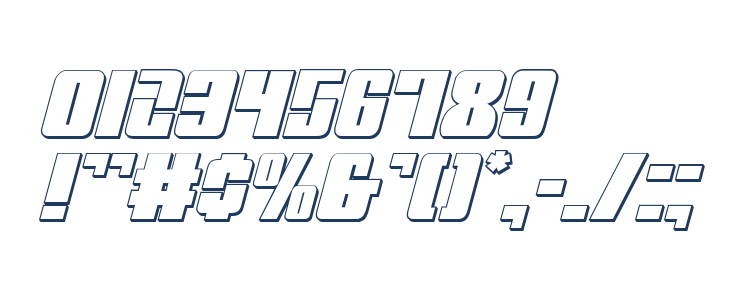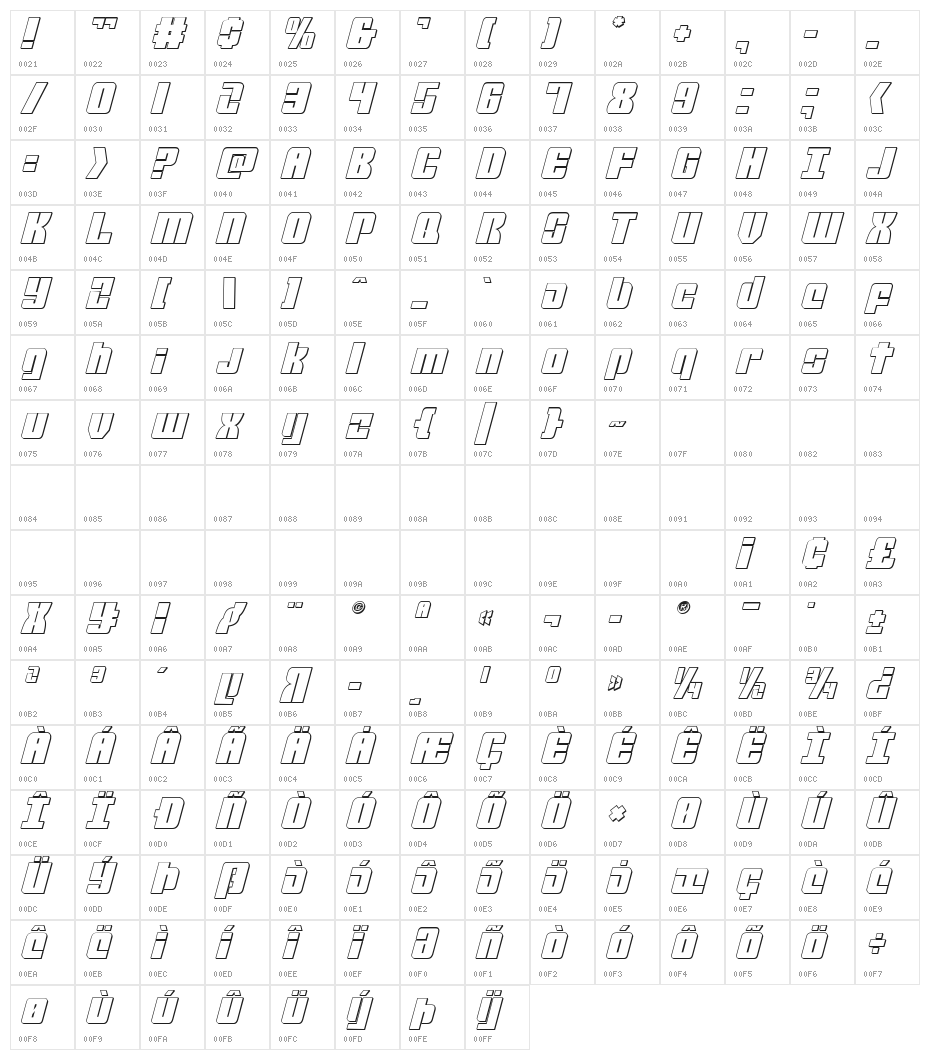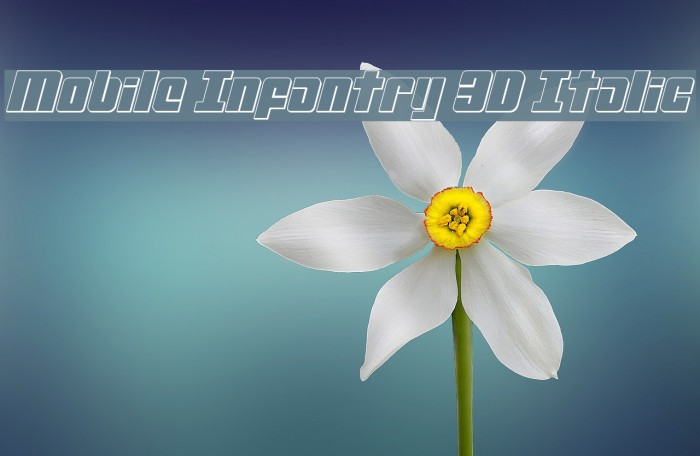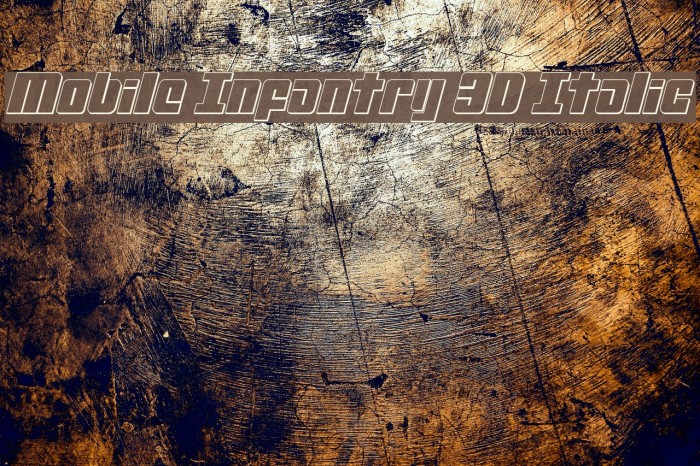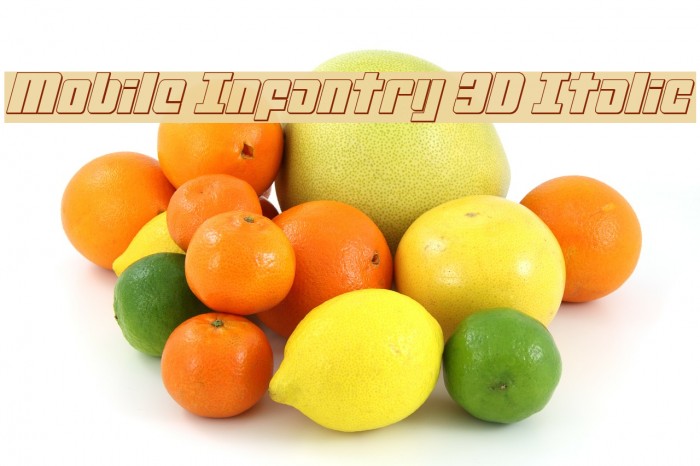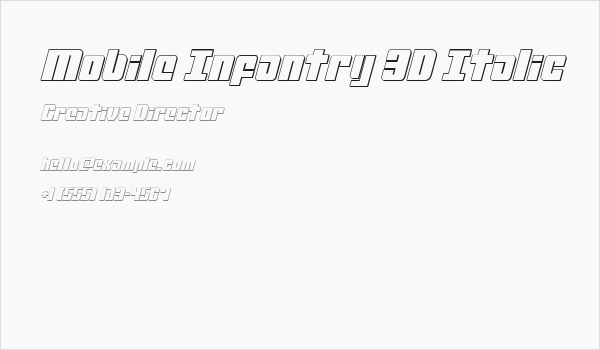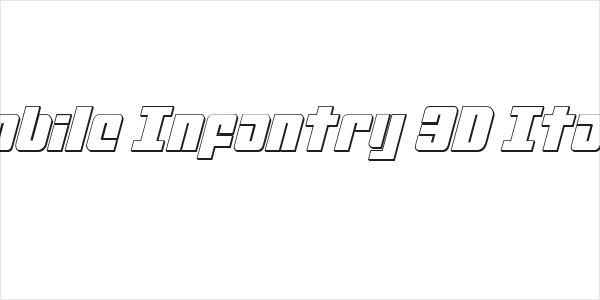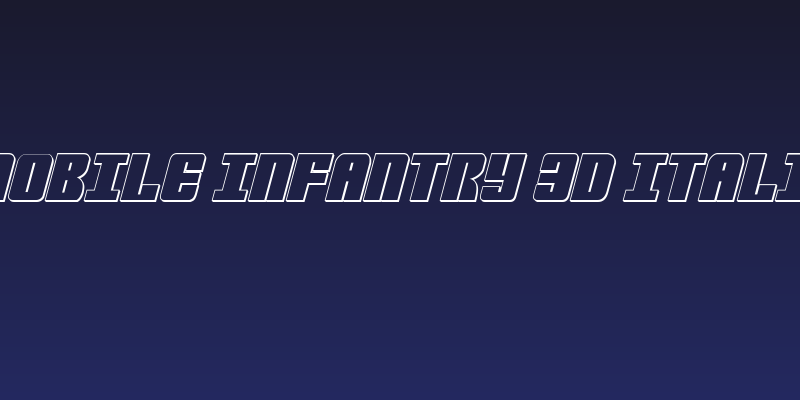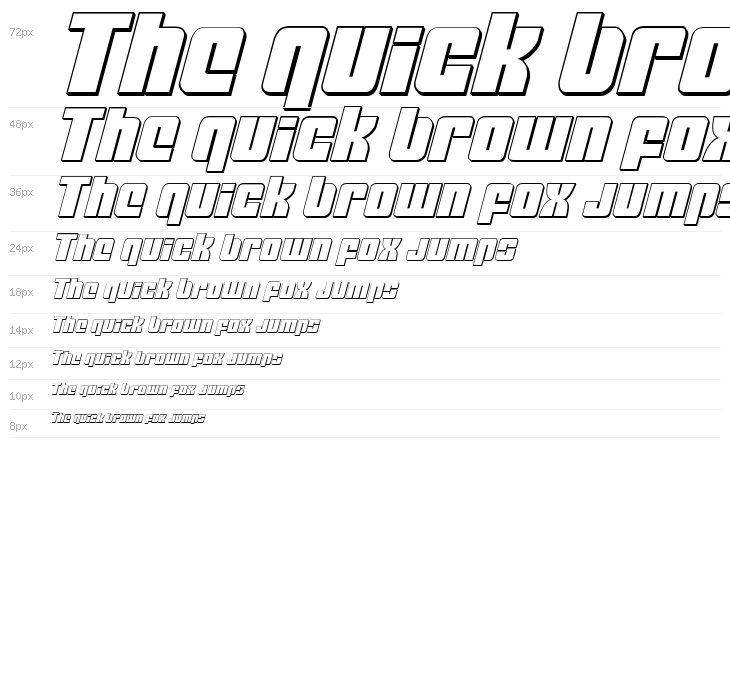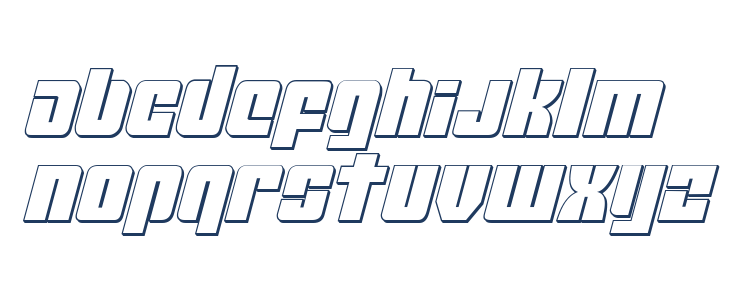
Mobile Infantry 3D Italic Font
Mobile Infantry 3D Italic Description
This font features a bold, three-dimensional design with an italic slant, giving it a dynamic and futuristic appearance. The characters are outlined, creating a sense of depth and movement. The uppercase and lowercase letters maintain a consistent style, with sharp angles and clean lines. Numbers and special characters follow the same aesthetic, ensuring uniformity across all elements. The font's unique structure makes it stand out, ideal for projects that require a modern and eye-catching typeface.